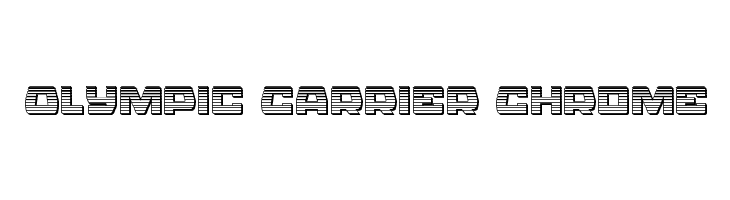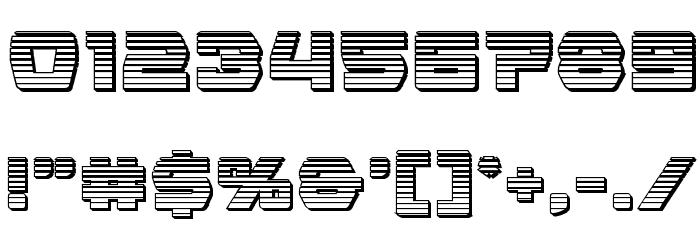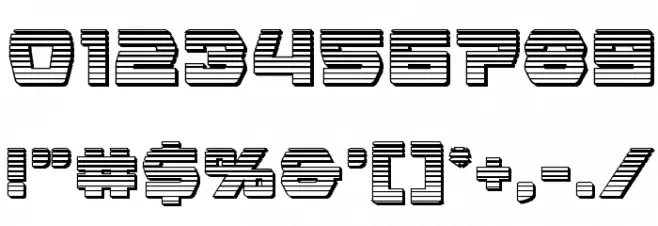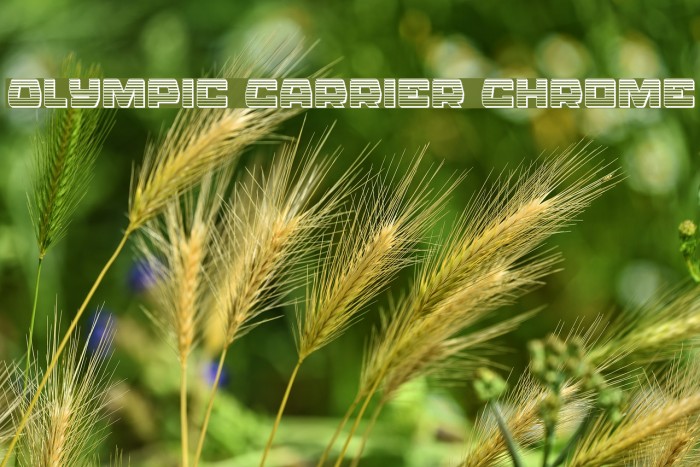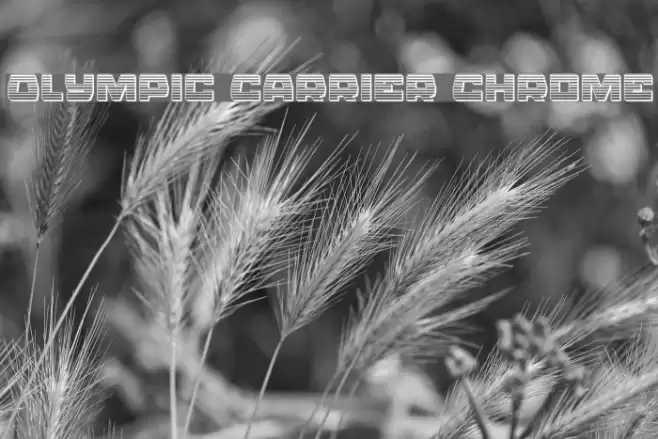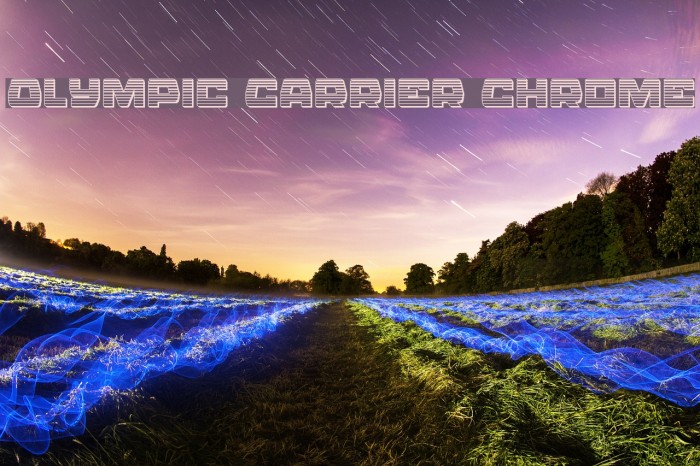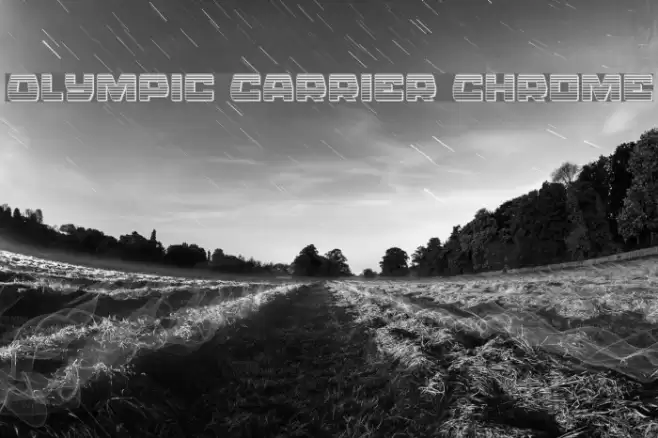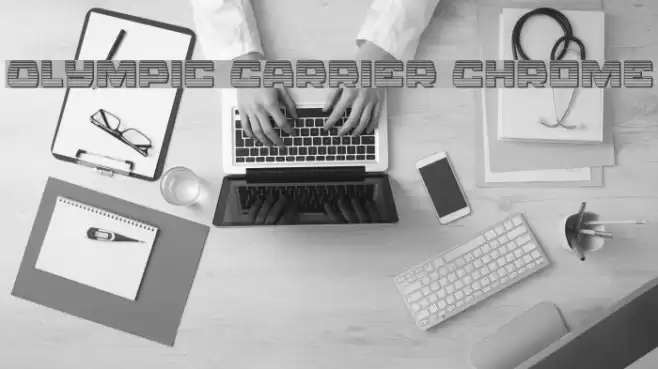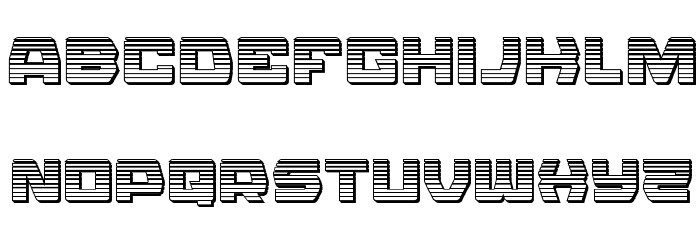
Olympic Carrier Chrome Font
✎ Sci-fi
| कंट्रास्ट | High |
| उपयोग का मामला | Headlines, Logos |
| सुझाए गए प्रोजेक्ट | Ideal for projects that require a modern, futuristic look such as technology branding, video game titles, or sci-fi movie posters. |